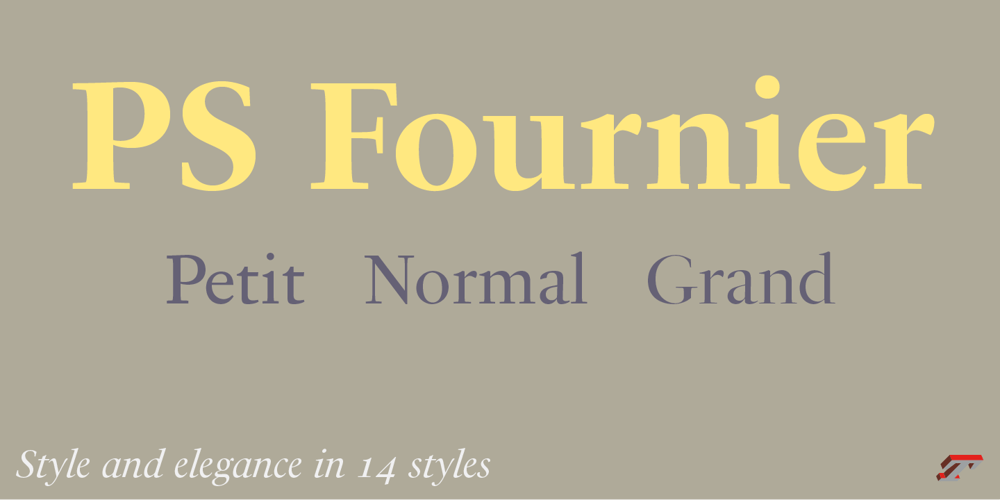
PS Fournier Std Font Family was designed by Stéphane Elbaz and published by Typofonderie. PS Fournier Std contains 24 styles and family package options. Style and elegance in 14 stylesPS Fournier, created by Stéphane Elbaz, is designed in tribute to Pierre Simon Fournier. Fournier was the prolific Parisian type designer whose work is best known for its iconic representation of French transitional style. PS Fournier elegantly represents the transition to the modern era of typography. Featuring three optical sizes, PS Fournier is designed to perform in any context.The Pierre Simon Fournier heritagePierre Simon Fournier (1712—1768) was a leading innovative type designer of the mid-18th century. Early in his career, the young Pierre Simon developed a strong aesthetic that he cultivated throughout his life. His art is representative of the pre-revolutionary “Age of Enlightenment” (Siècle des Lumières). Precursor of the Modern style, Fournier’s body of work deeply influenced his times, and created the fertile ground from which the Didot family and Giambattista Bodoni developed their own styles.During the historical period of the 18th century, Fournier exemplified the intellectual pursuits of the times with his own research on type, documenting in detail the typefounding process. He also offered a unique vision: he is the first to clearly comprehend the concept of “type family,” sorting a set of similarly styled alphabets by sizes, width, and by x-heights. In addition, Fournier is one of the earliest advocates of the point system to organize the practice of typography, the point system that contemporary typographers continue to use to this day.The refined and discreet elegance of PS FournierWith a close look at the family, one finds you’ll find that the difference between the optical sizes (Petit, standard and Grand) is more than a contrast variation between the thin and the thick; the eye can also denote a palette of distinct tones: More streamlined and robust in the smaller sizes (Petit), more refined and detailed in the larger sizes (Grand).The PS Fournier standard family is designed to adapt to any situation with its intermediate optical size, from body copy to headlines. With a bit of tracking, PS Fournier Petit will make the smallest captions perfectly readable. However, Petit family is not limited to body and captions — its “slabby robustness” will make a relevant headline choice as well.PS Fournier Grand presents a higher contrast adapted to large text sizes, displays or banners. Its refined elegance makes it a perfect choice for Design, Fashion or Luxury publications. As a “modern” type PS Fournier Grand features a larger x-height than the preexistent old style typefaces such as Garamond or Jenson. These proportions provide any basic text set in PS Fournier Grand a strong typographic texture.As a result, the PS Fournier global family is a versatile alternative to the Modern typefaces commonly used in the publishing industry. The optical sizes, the large range of weights, and the design variations make this family adaptable to captions, paragraphs, and pages, as well as to large texts and displays.A leading-edge typography in the 18th centuryIn the spirit of modernity, Pierre Simon Fournier did not find any use for the conventional swashes still produced by peers such as Caslon or Baskerville. Nevertheless the French designer created many inventive elements to decorate the page and set delightful variations in the text itself. To this regard PS Fournier includes a large set of glyphs variations, ligatures and more than one hundred glyphs for borders, rules and ornaments or — as called in French — “vignettes.”PS Fournier: A tribute to the French modern typography era by Stéphane Elbaz